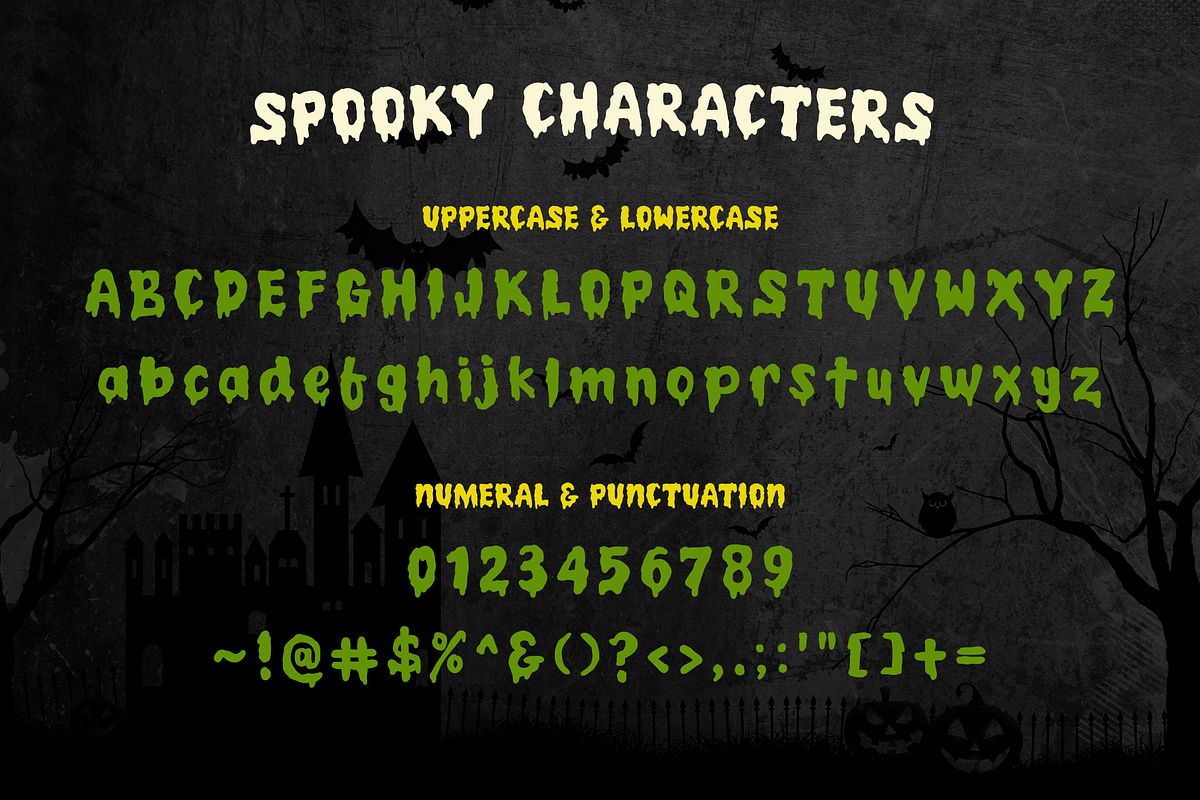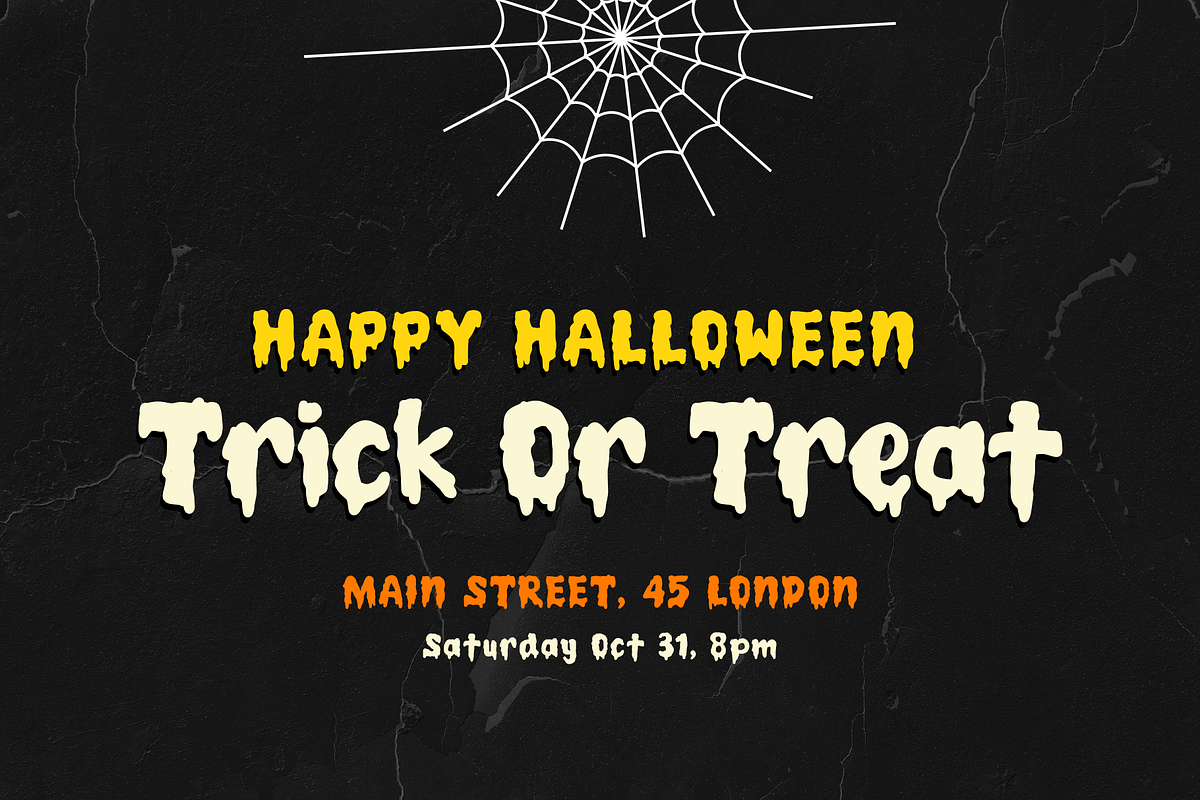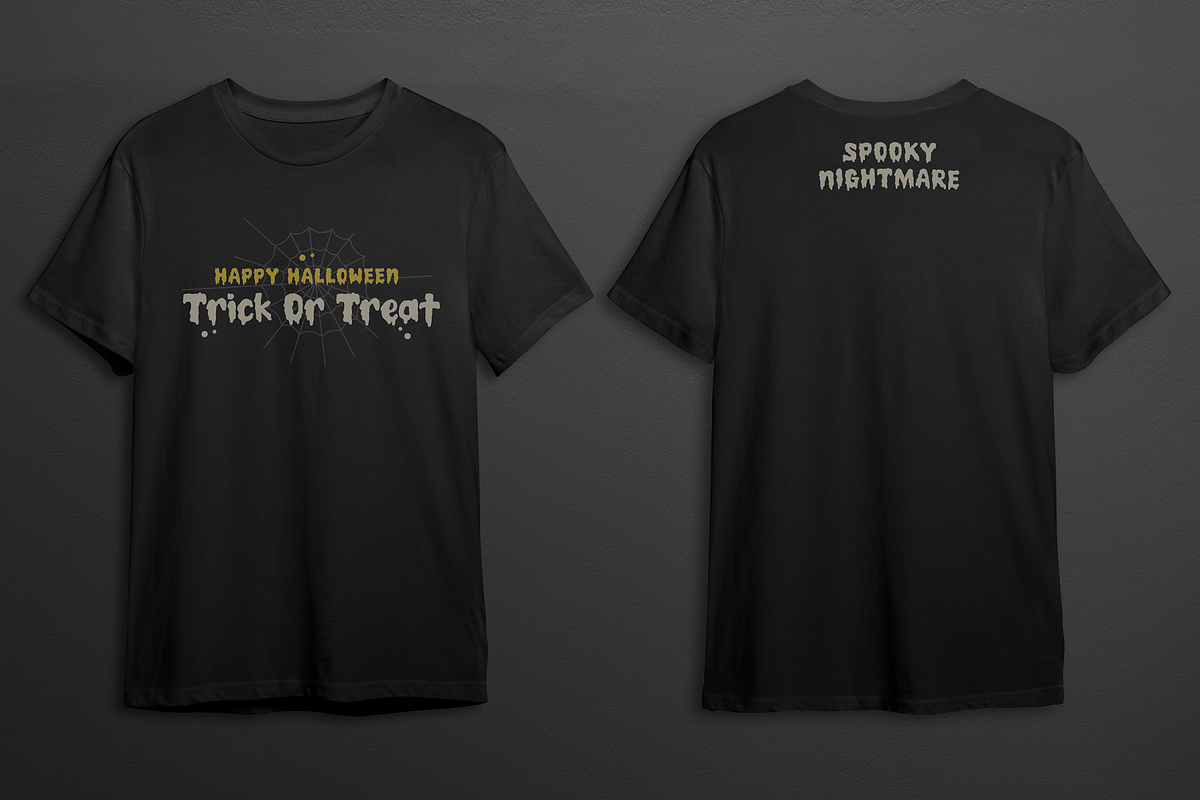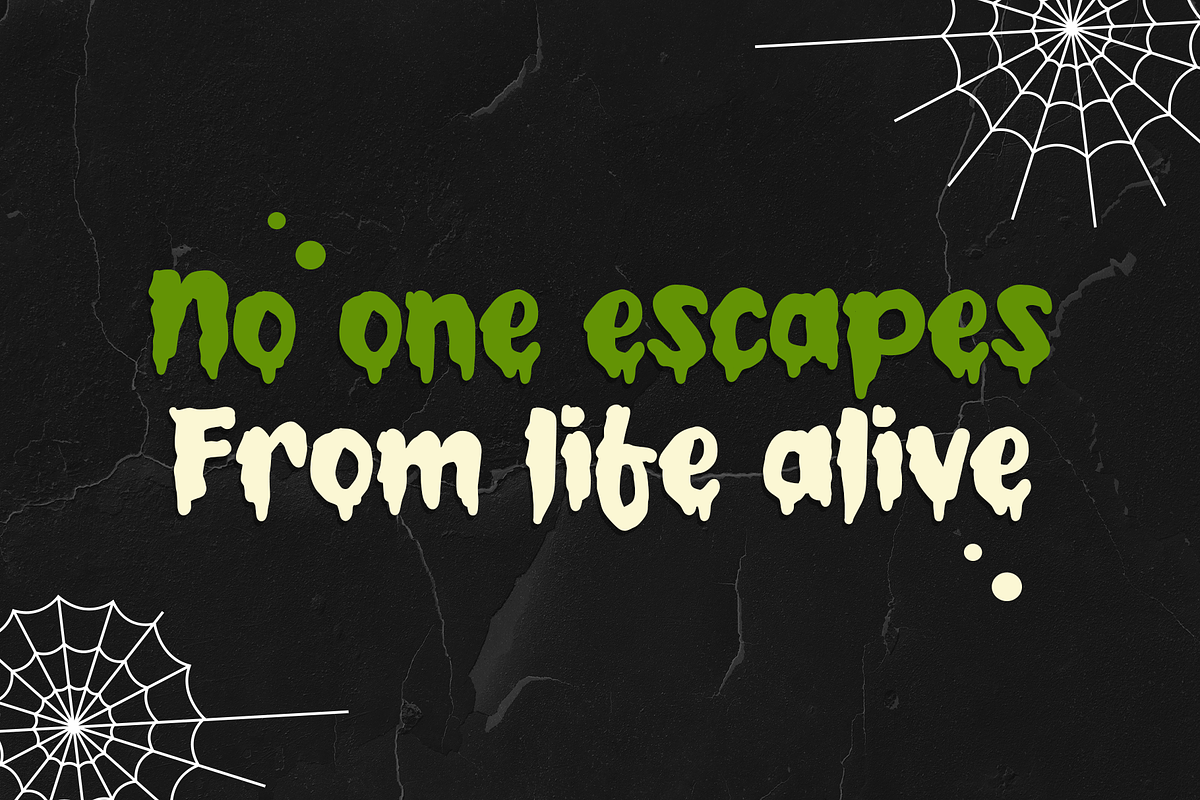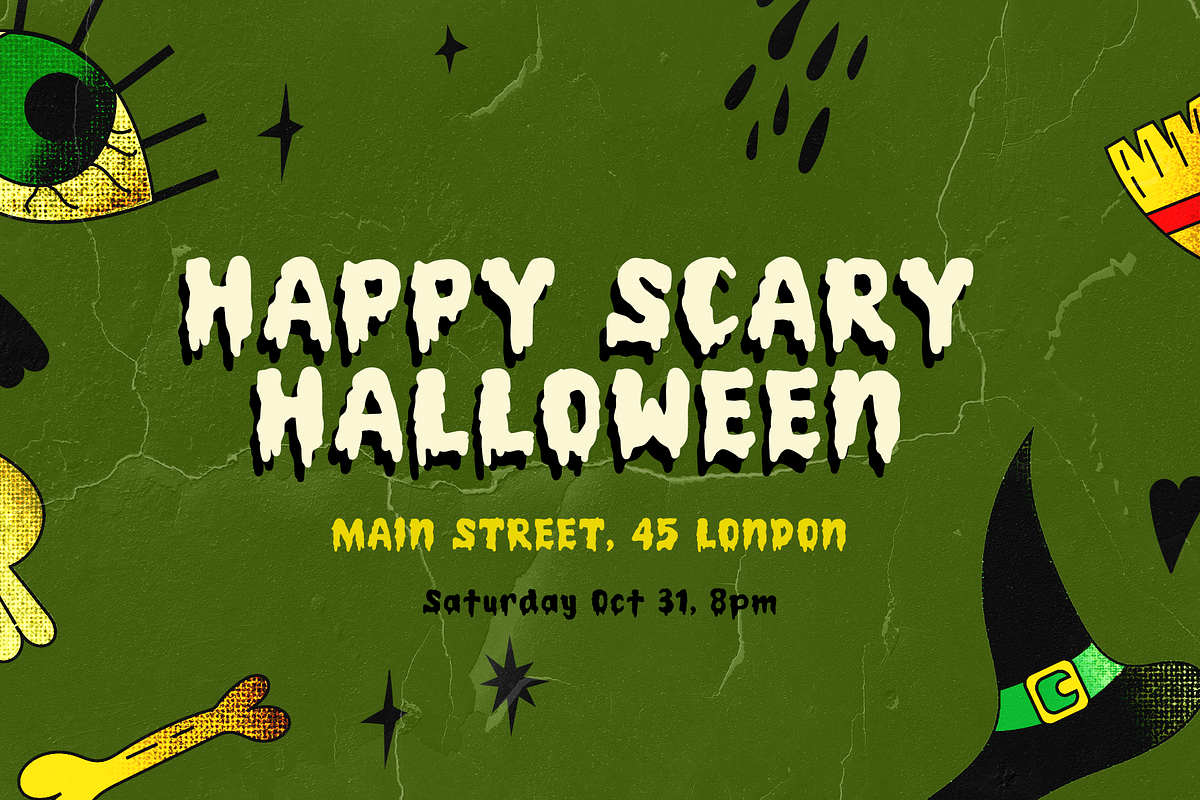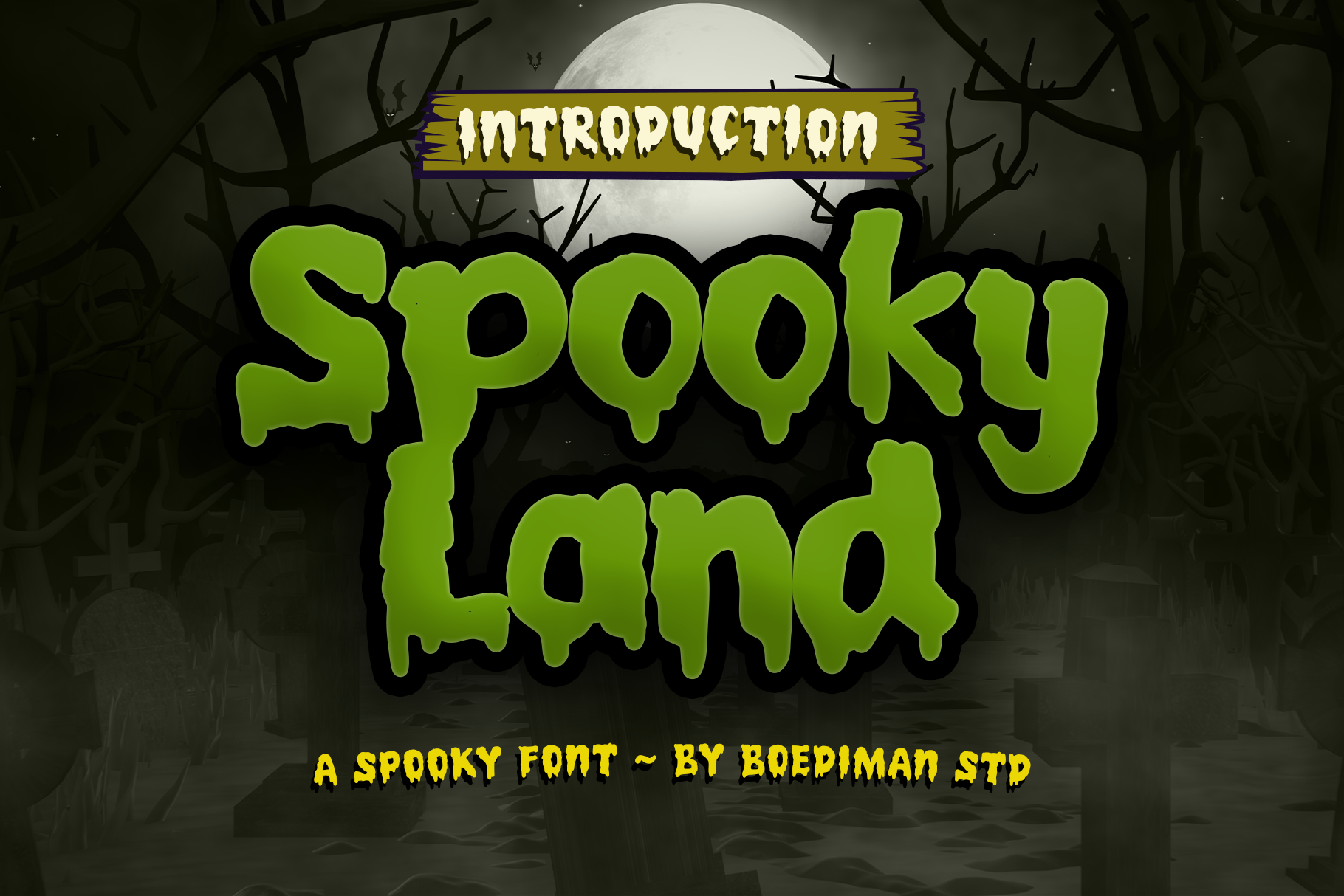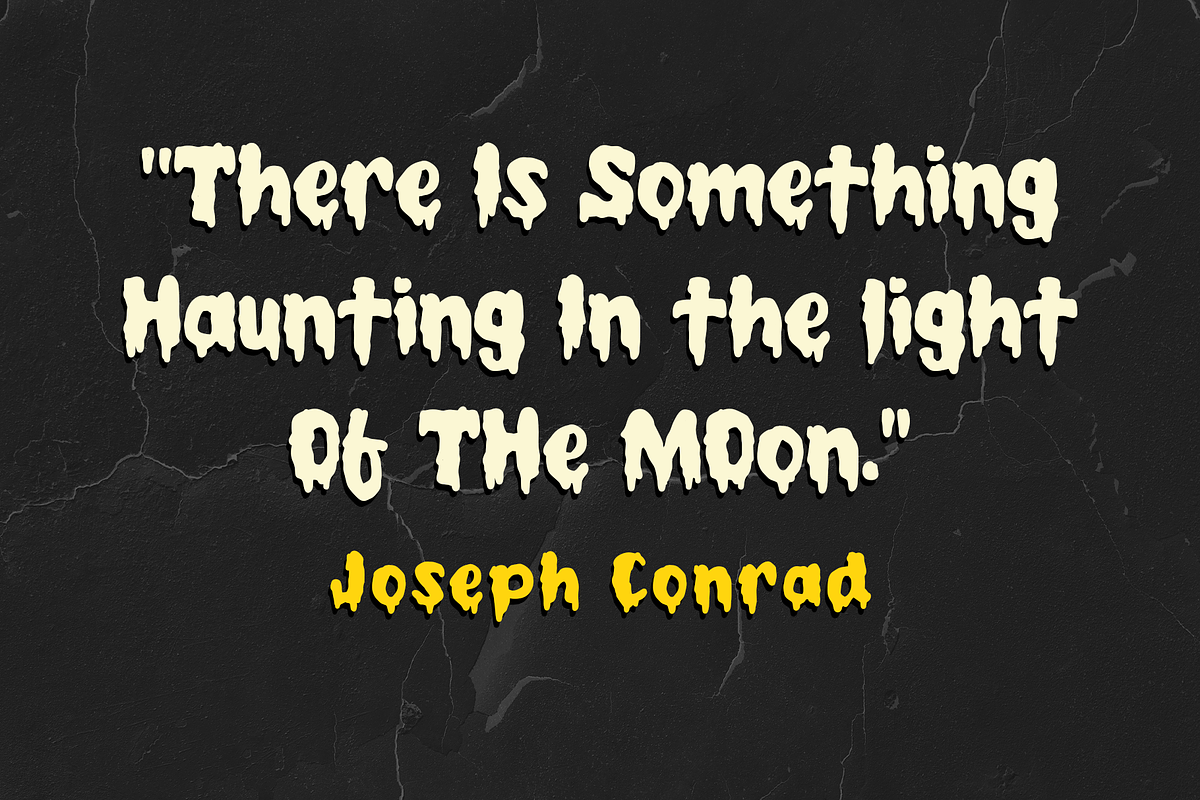
Spooky Land - A Display Font
Introducing Spooky Land - A Display Font
A Spooky Land is unique and spooky font that bring funny creepy feel. Add this font to your favorite Spooky themed ideas, tshirt, invitations, banner, logo, app game scary or horror and notice how it makes them come alive!